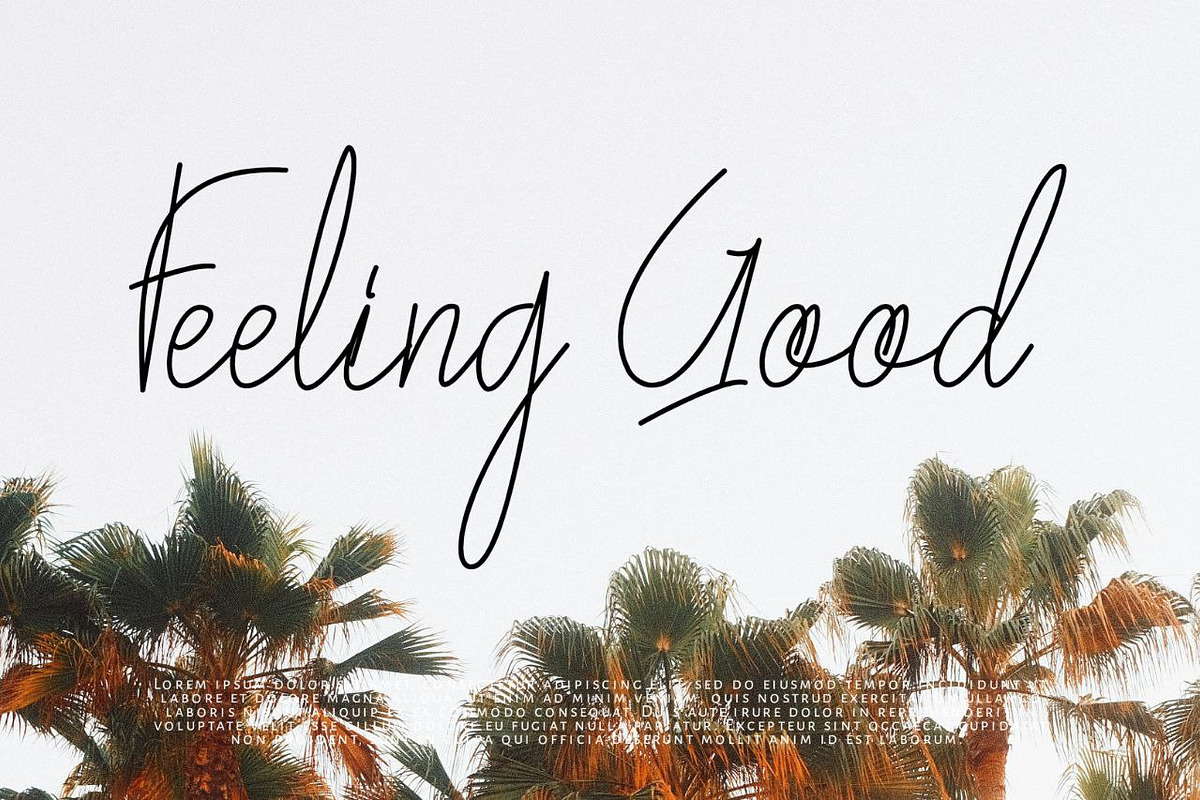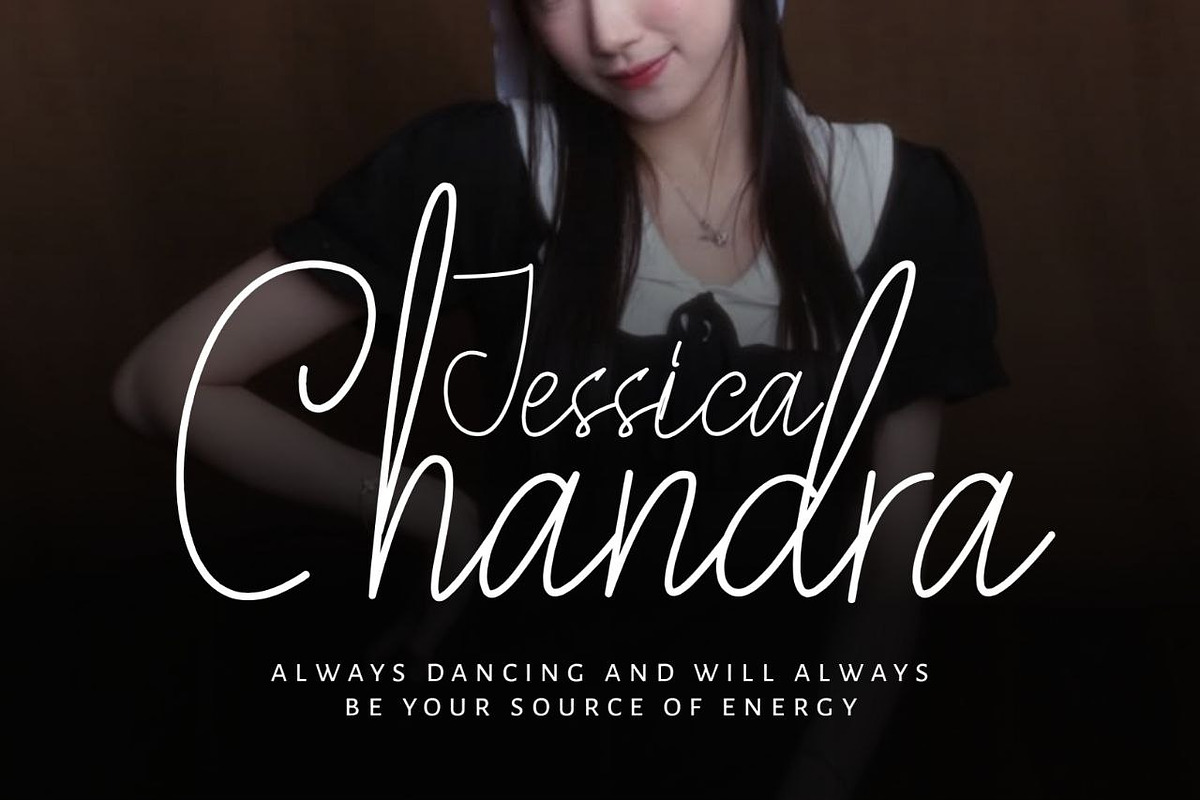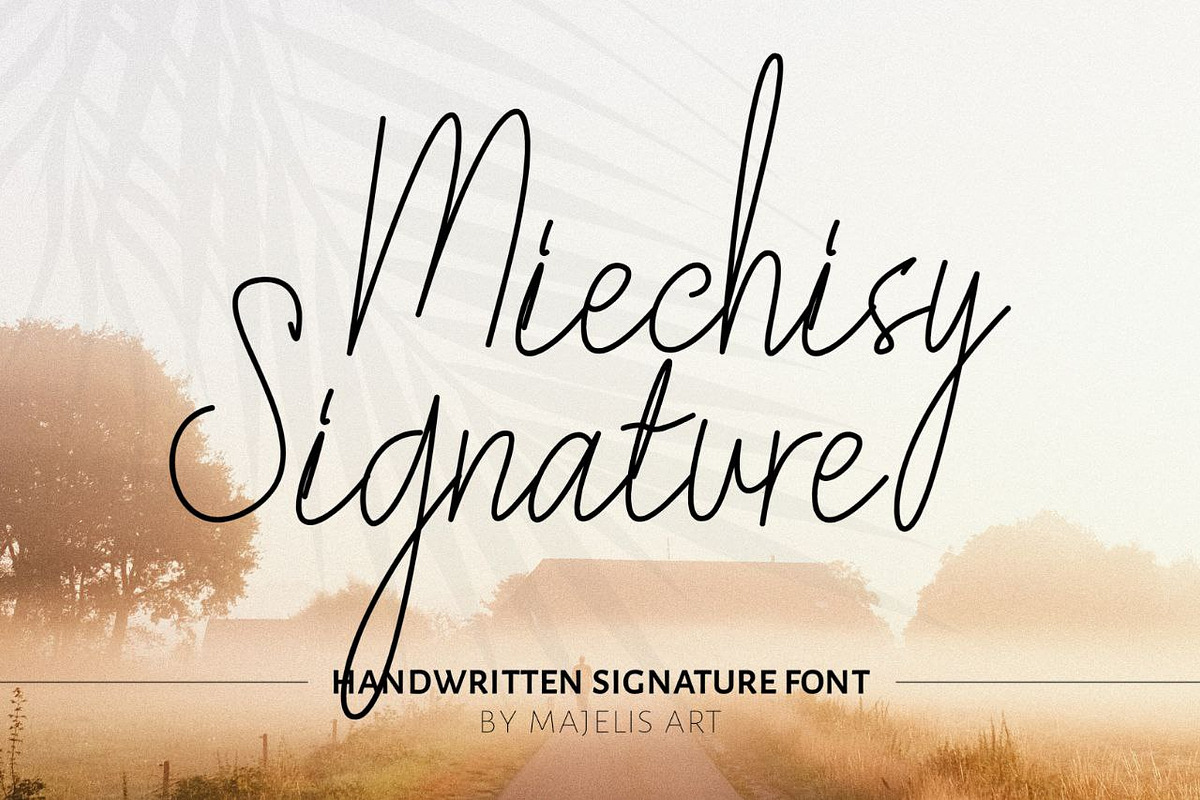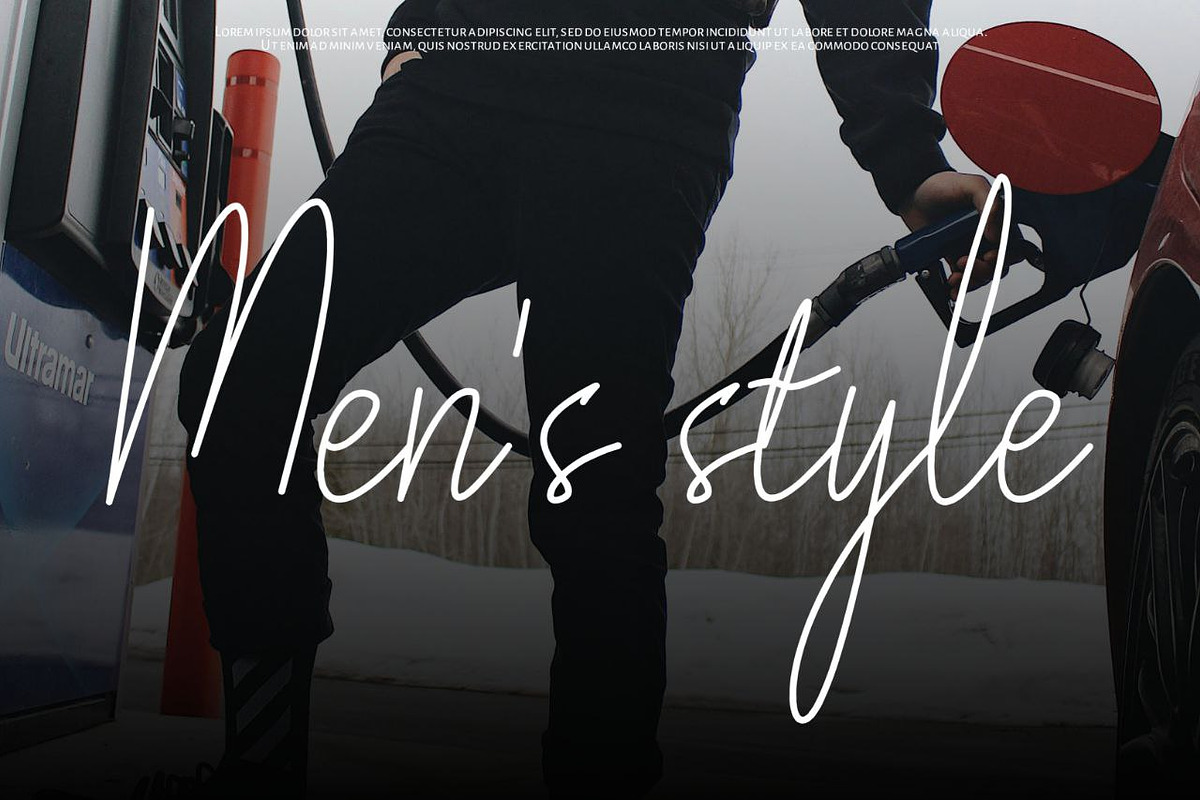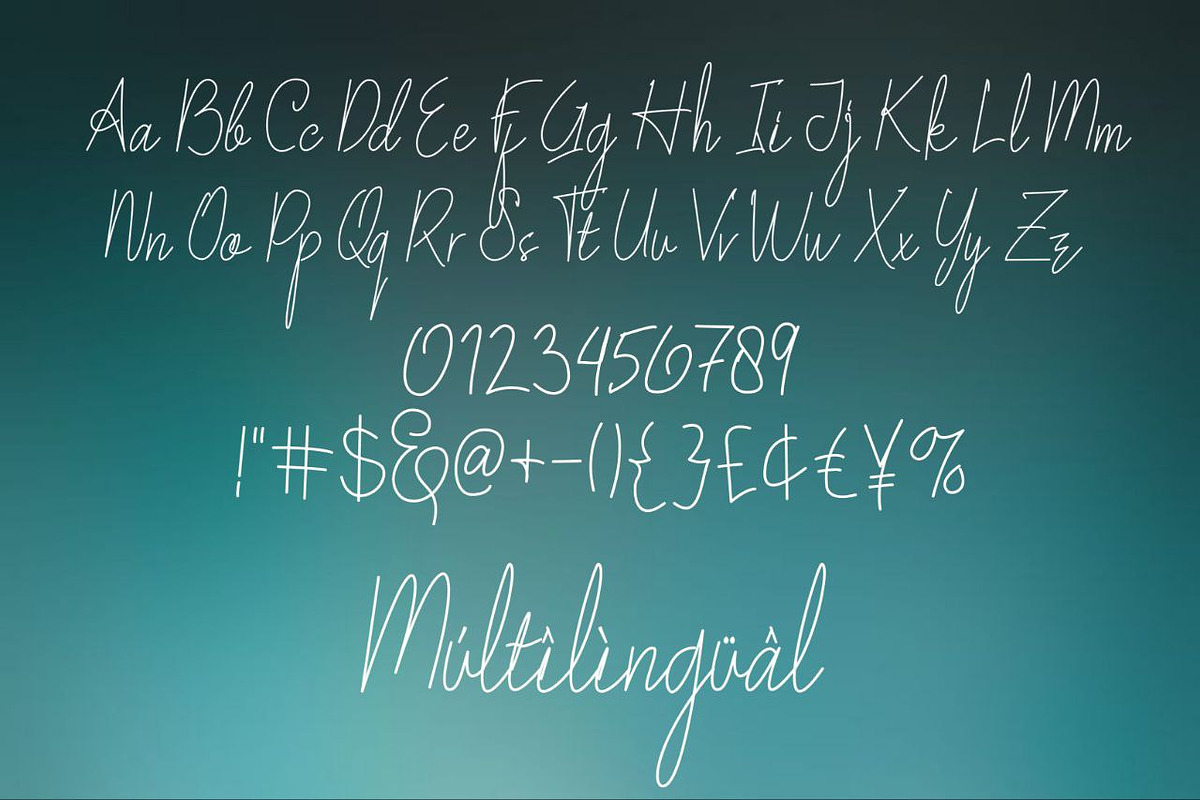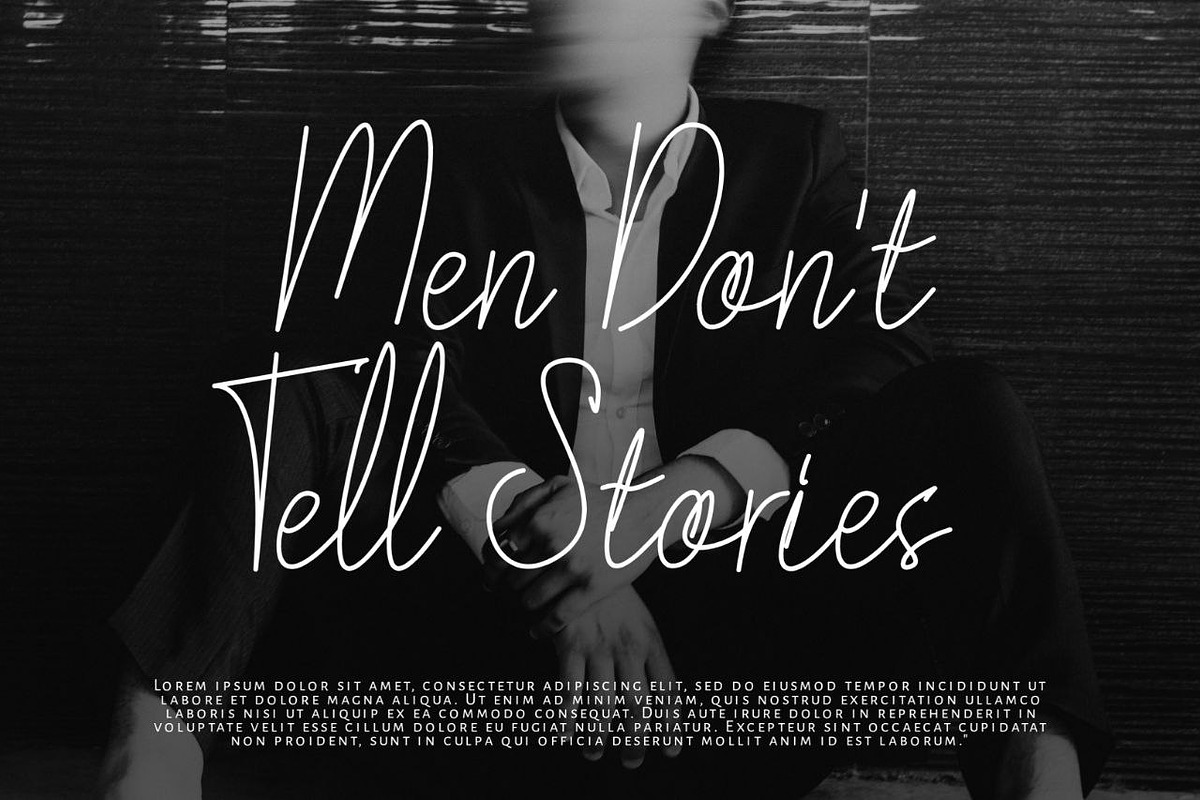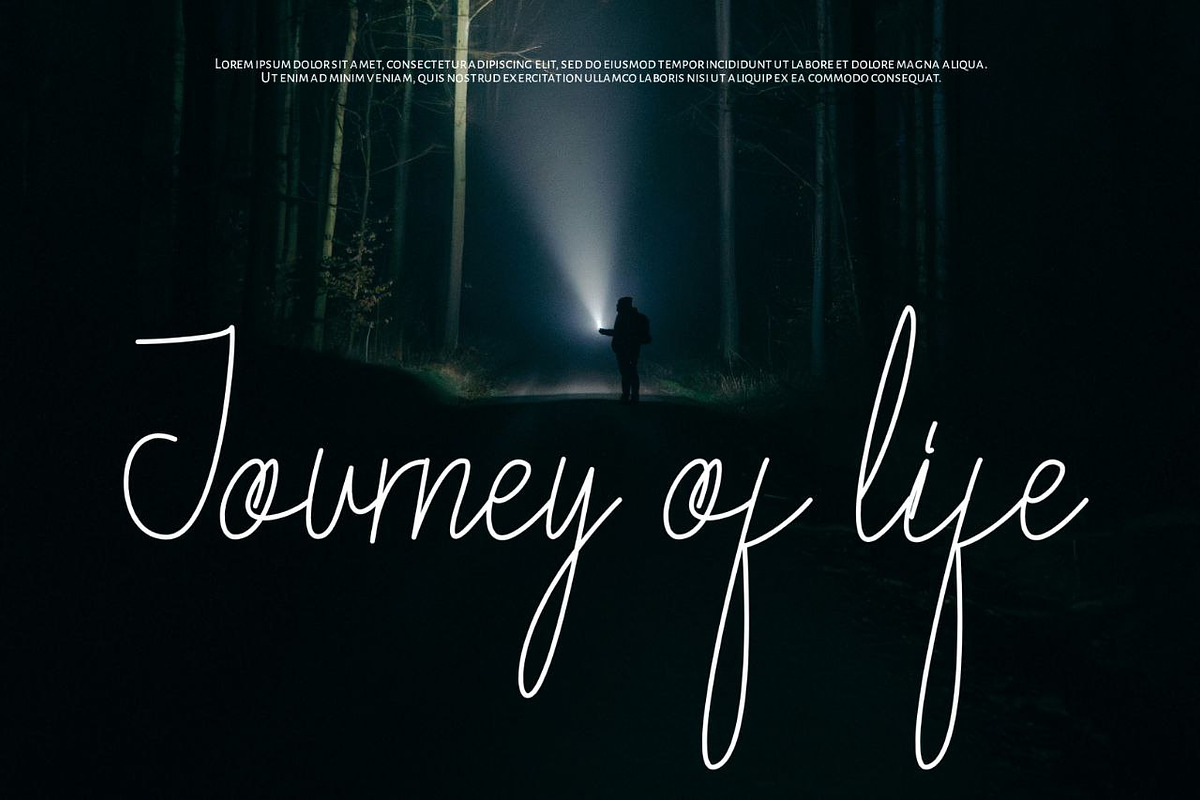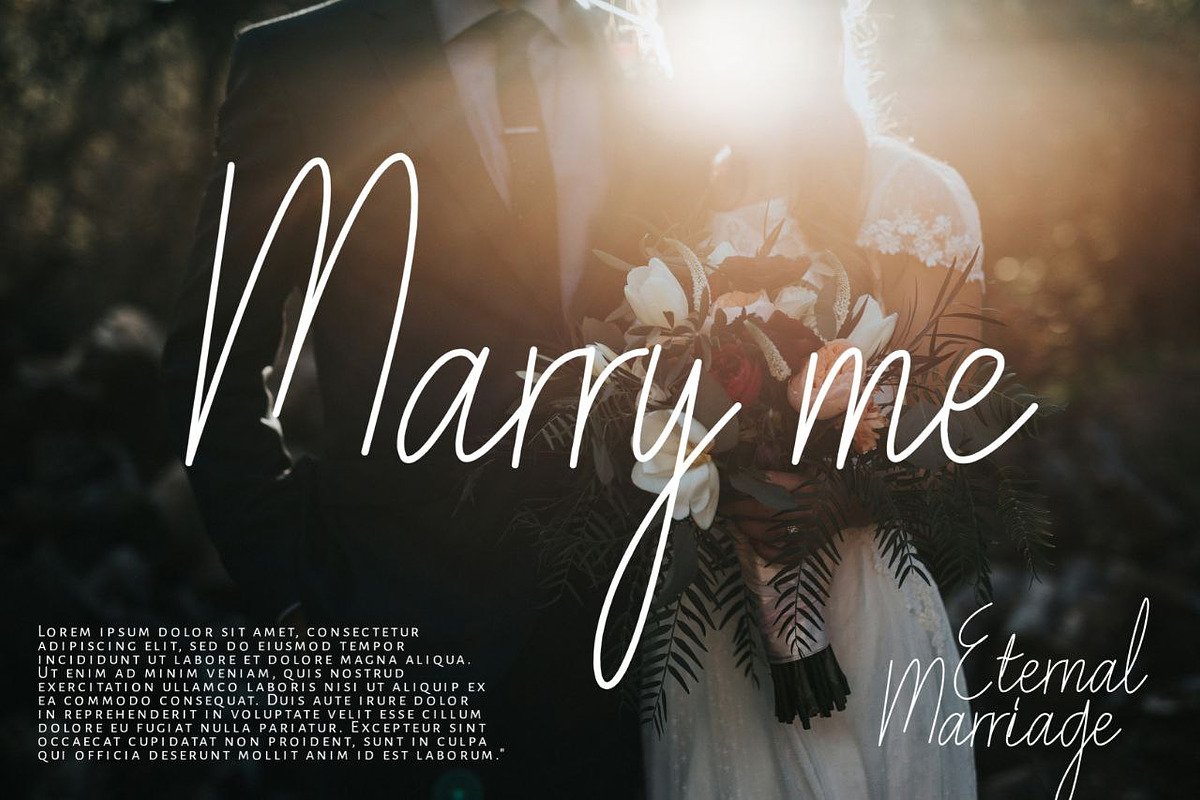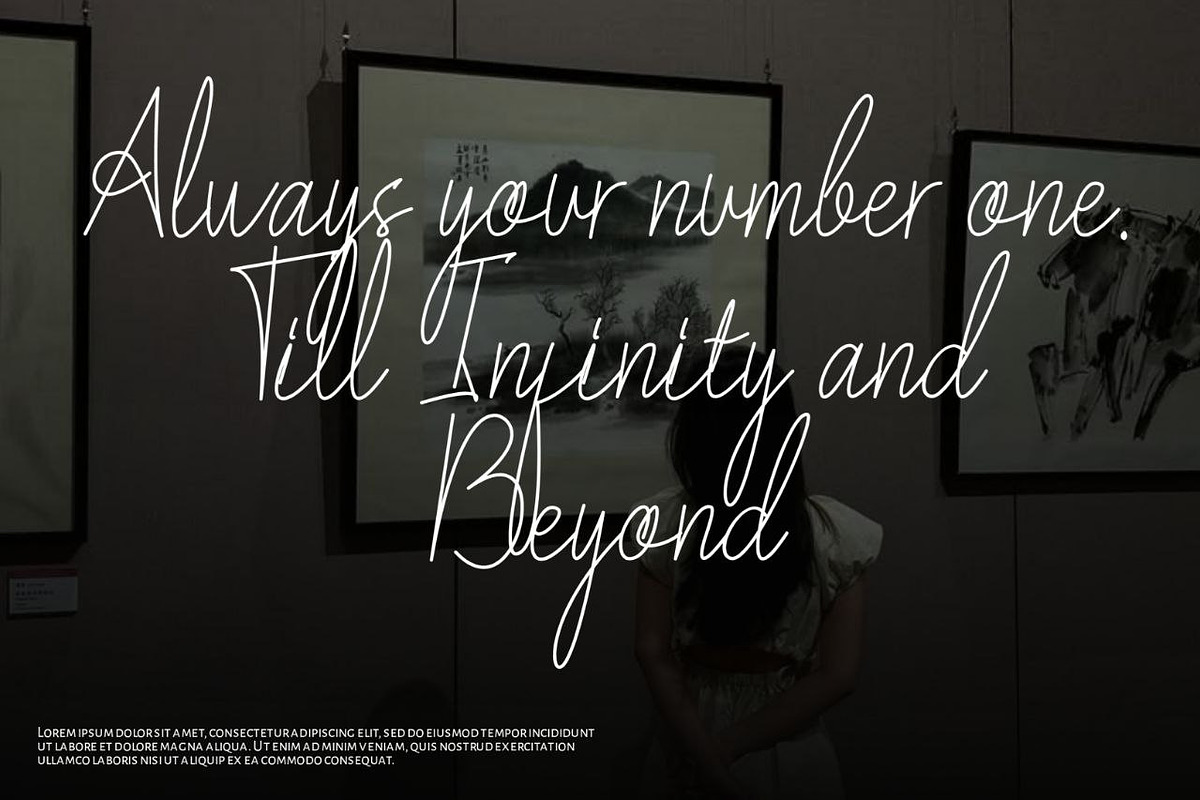
Miechisy - Signature
miechisy is a font with unique and elegant ink curves. It matches the beautiful handwriting structure and its eye-catching curves.
Miechisy is perfect for branding projects, logo, wedding designs, social media, advertisements, product packaging, label, photography, watermark, invitation, stationery and any projects that need handwriting taste.